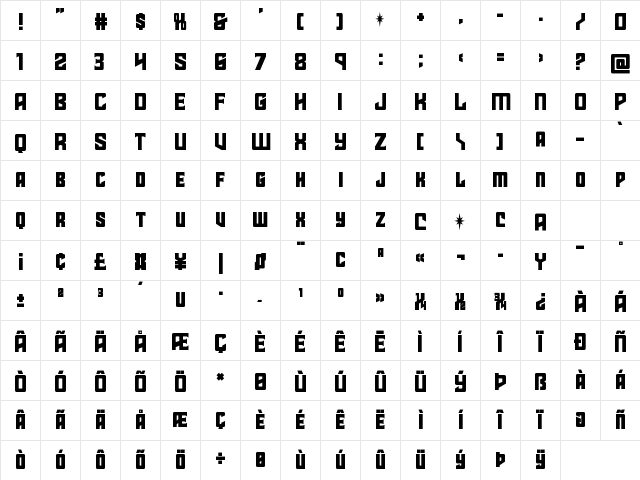
Complete Star Guard Drop-Case Regular glyph index. Displaying only characters natively supported by Star Guard Drop-Case Regular font.
Star Guard Drop-Case is a composed and adaptable typeface that performs quietly and consistently across a wide range of design contexts.